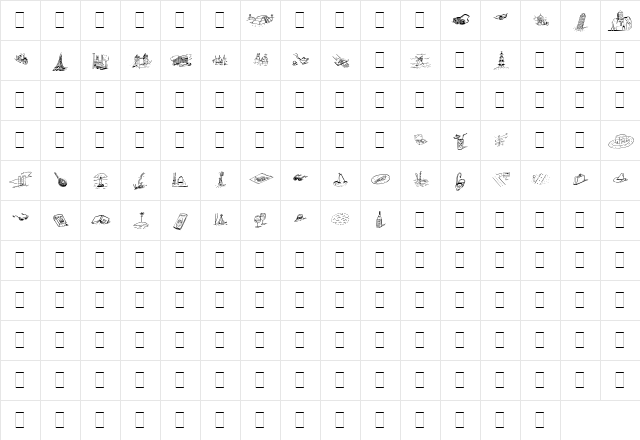
DF Journeys One Regular
Design Context for DF Journeys One Typeface
DF Journeys One is a composed and adaptable typeface that performs quietly and consistently across a wide range of design contexts.